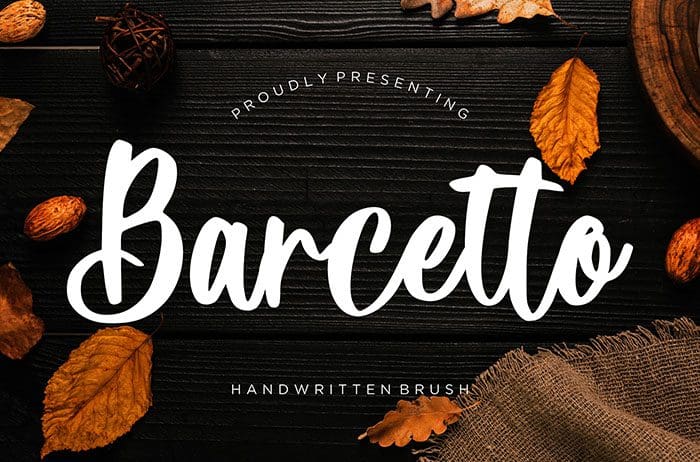
Barcetto Script Font
Barcetto Script Font is a stylish natural move. Barcetto is perfect for branding projects, logo, wedding designs, stationery, and many more. Thanks to Creatype Studio for sharing this font! Take a look at this portfolio for more of his stunning fonts.